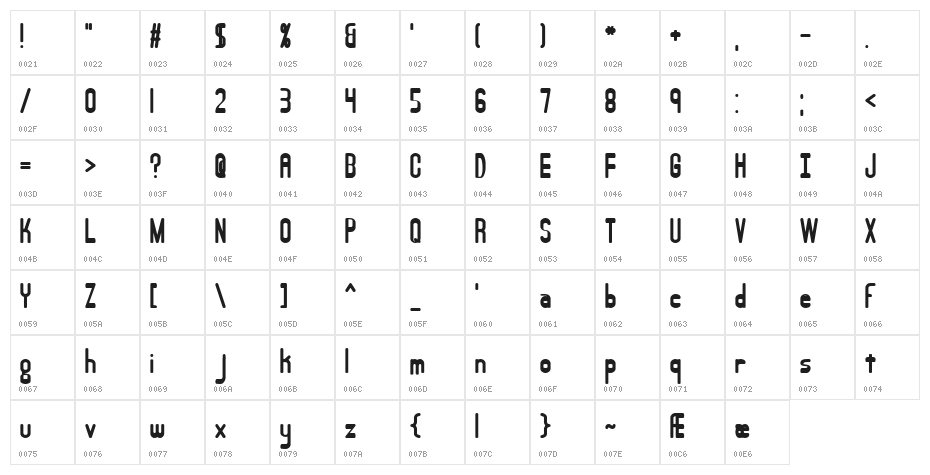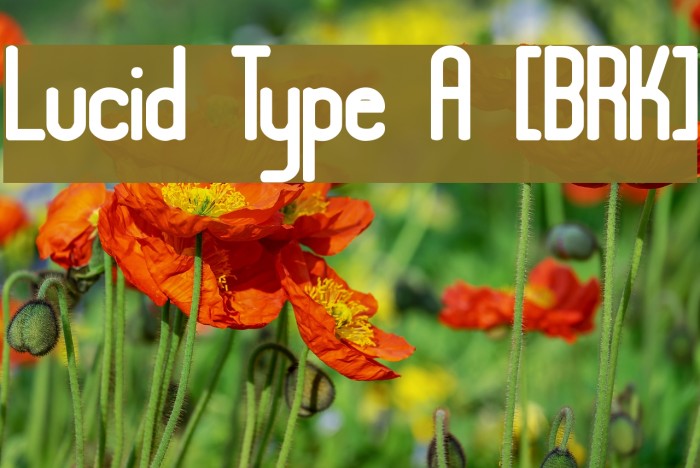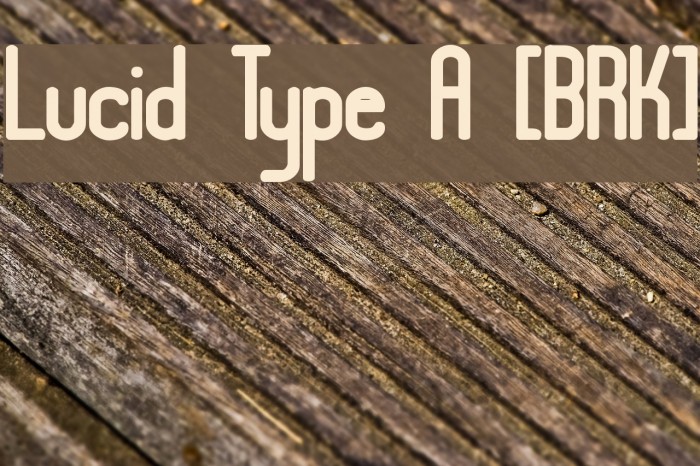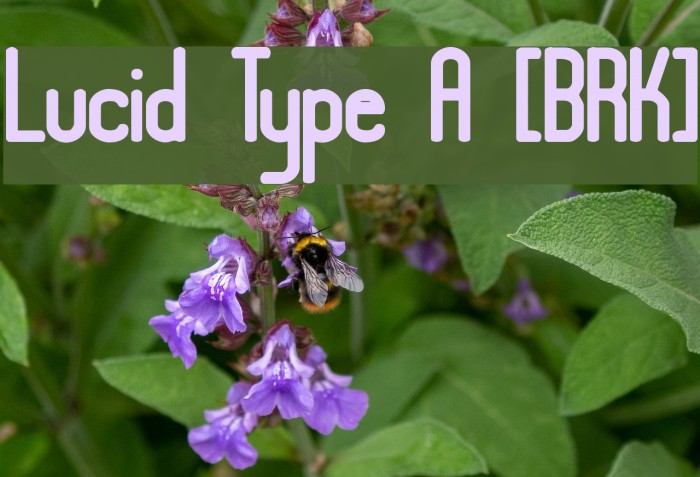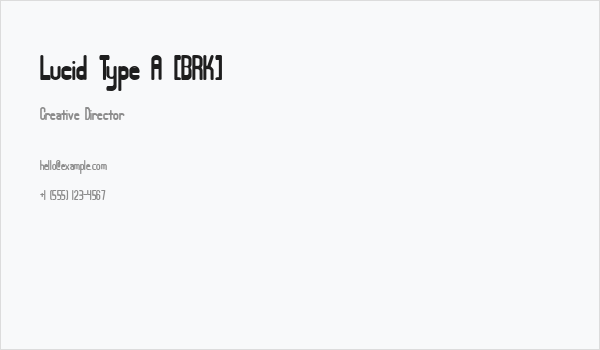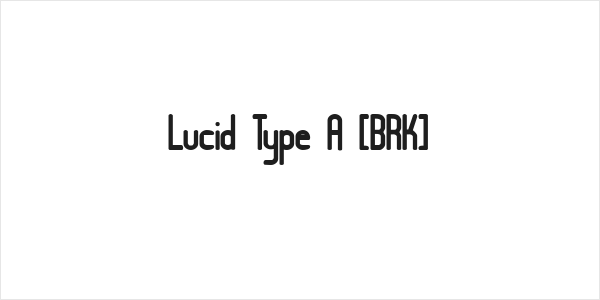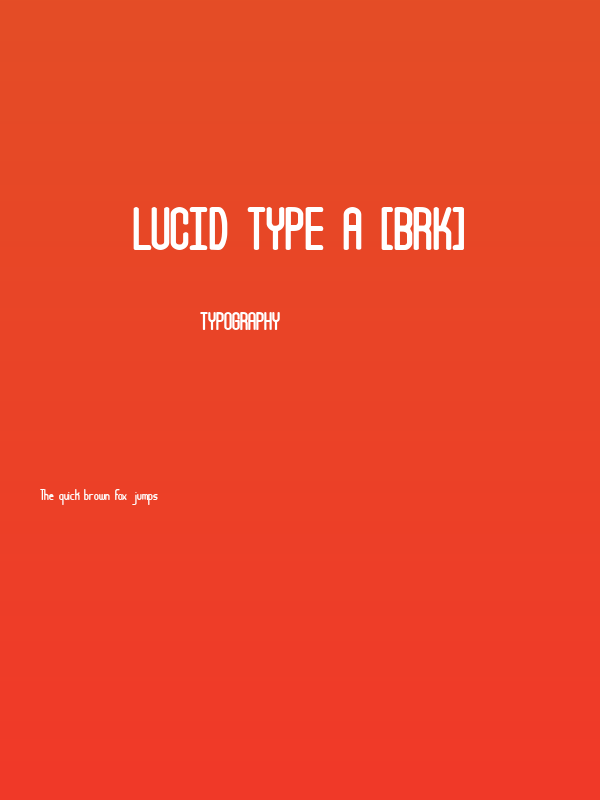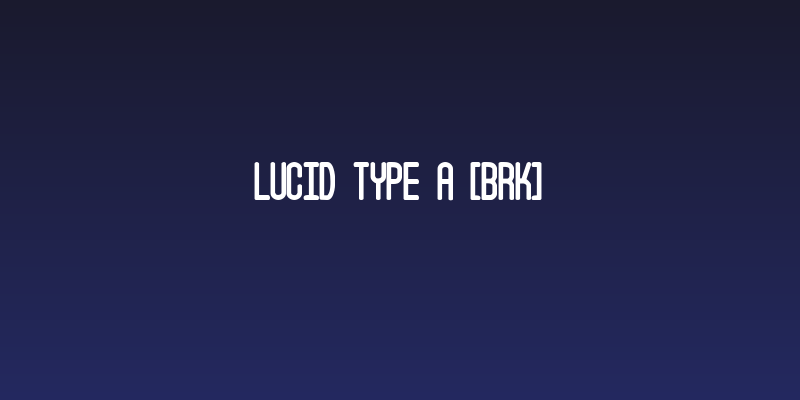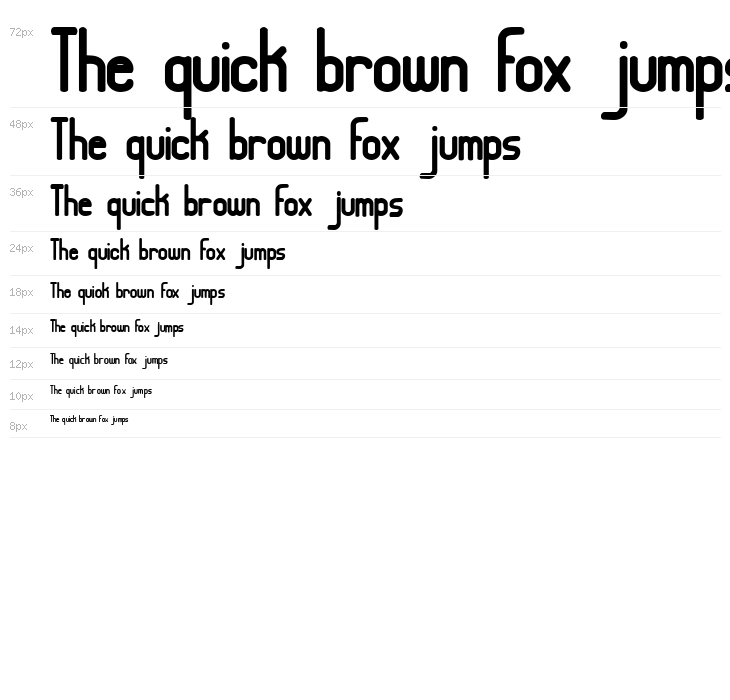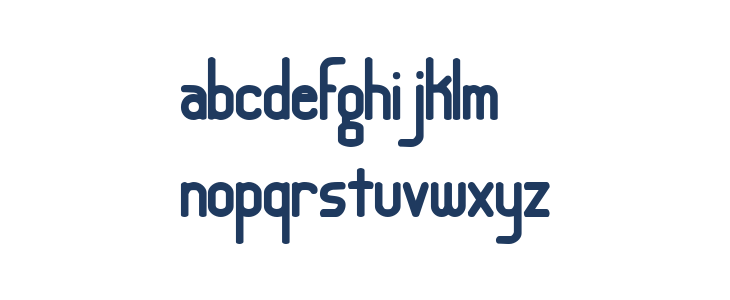
Lucid Type A [BRK] Font
Lucid Type A [BRK] Description
This font features a modern, geometric design with rounded edges that give it a friendly and approachable appearance. The characters are bold and have a consistent stroke width, contributing to a clean and uniform look. The uppercase letters are slightly taller than the lowercase, maintaining a balanced proportion. The numerals are clear and easy to read, matching the style of the alphabet. Special characters are distinct and well-integrated into the overall design. This font is versatile, suitable for both digital and print media, and can be used effectively in various design contexts.
Proposed ProjectsIdeal for branding, advertising, posters, and digital media projects.